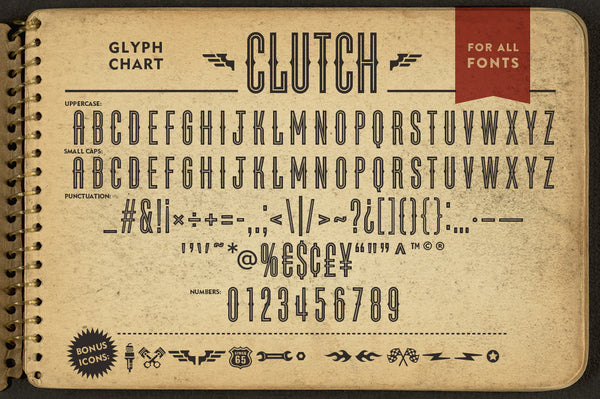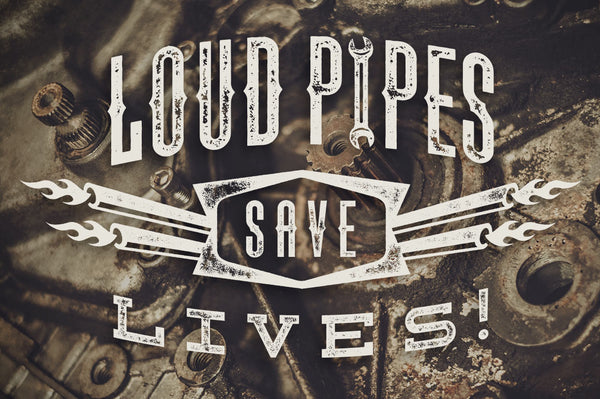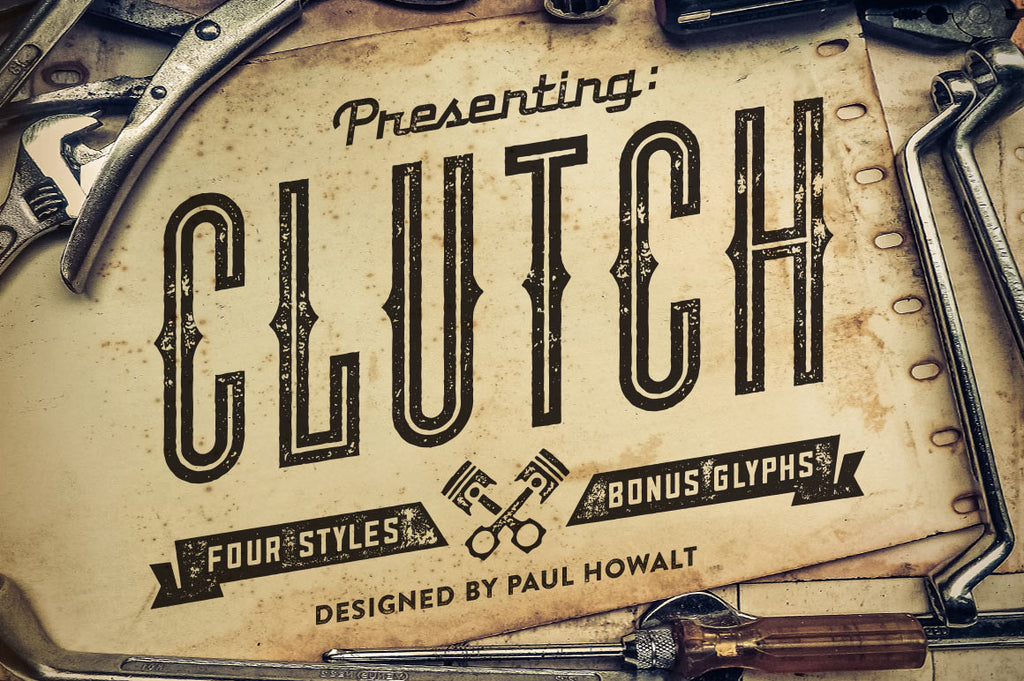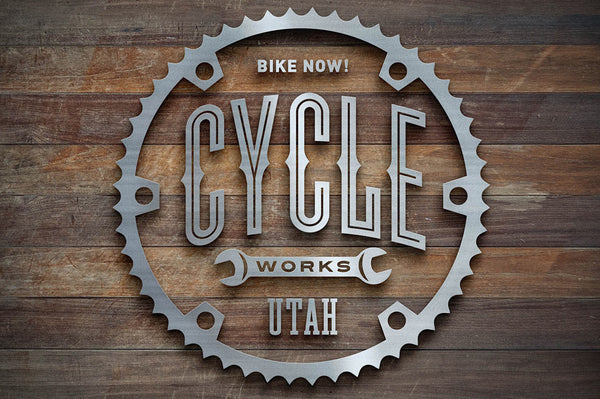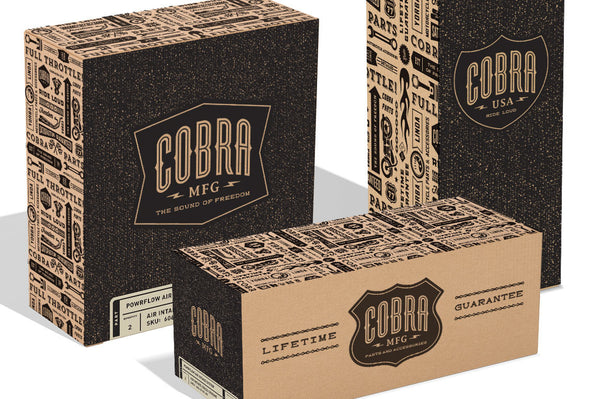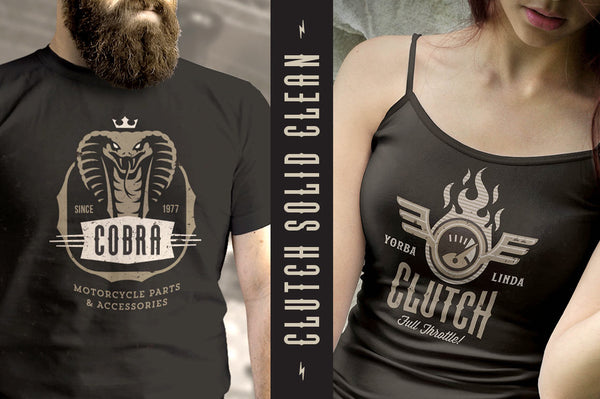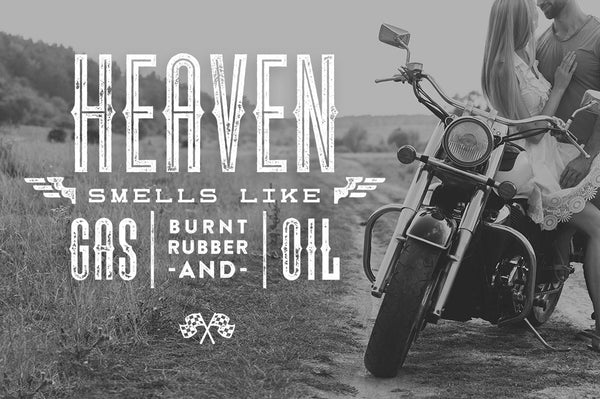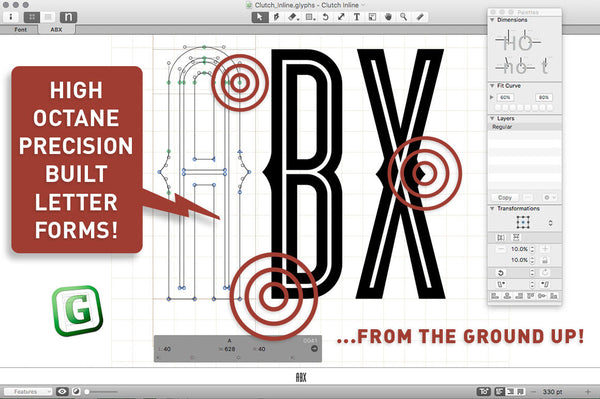
Clutch Font Family + Bonus Icons
Presenting the CLUTCH Font Family!
Clutch is a clean inline & solid headline typeface, with irresistibly textural, eroded versions to match!
The inspiration to create this font family came from my love of retro motorcycle parts, greasy American ‘dive’ bars, antique machinery & rockabilly album covers.
There are so many wonderful characteristics about typography from these ‘worlds’ that I couldn’t wait to combine some of them all into a new font that was a bit more geometric, modern and polished enough to use for branding purposes.
After seeing the final result, I knew I HAD TO create a matching eroded (Rough) font set to match the solid & inline versions, for use in more playfully gritty logos, layouts and type treatments.
• Clutch Solid Clean
• Clutch Solid Rough
• Clutch Inline Clean
• Clutch Inline Rough
• 14 BONUS Icons *
Each of the 4 OpenType fonts comes with a full uppercase standard character set, punctuation & numerals, with small caps assigned to lowercase keys.
* BONUS ICONS - 14 bold, hard hitting graphic icons (Clean & Rough) to add punch to all your design work!